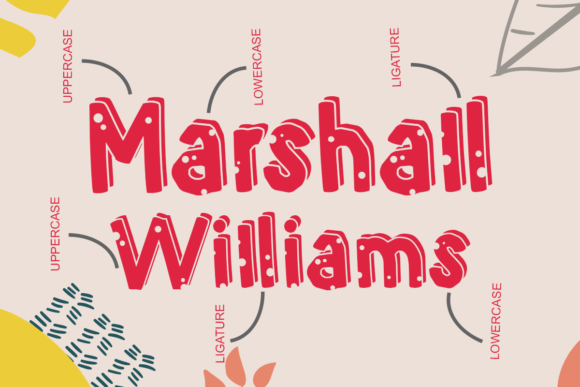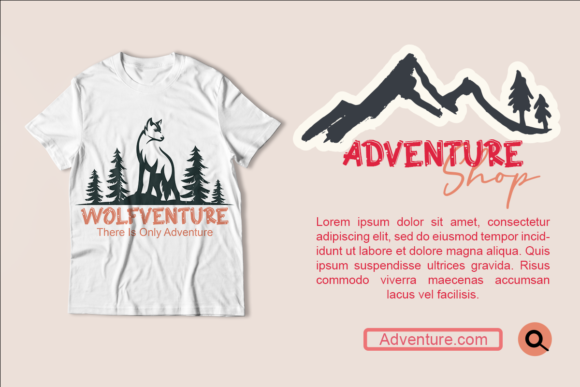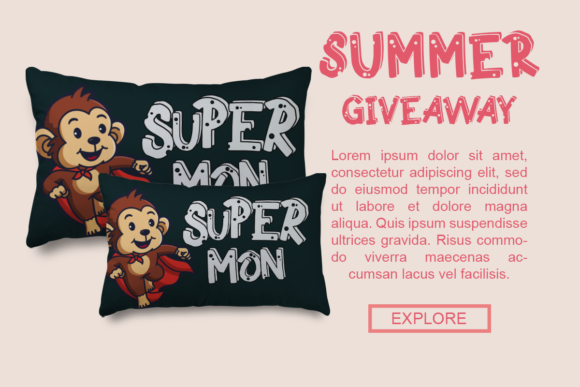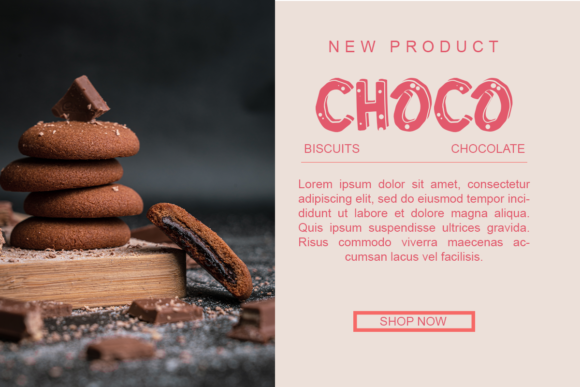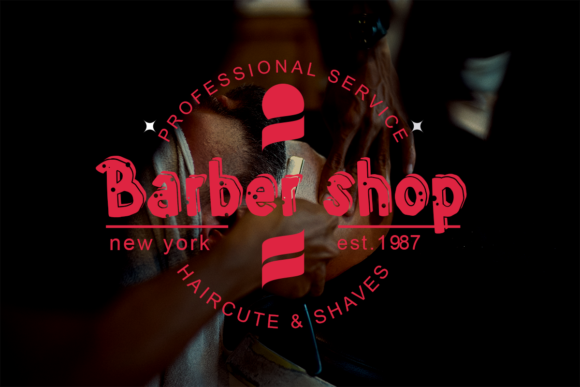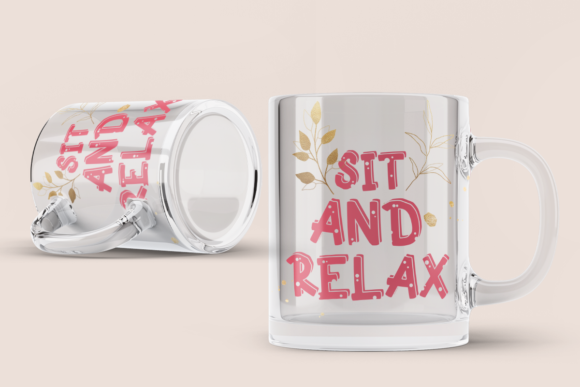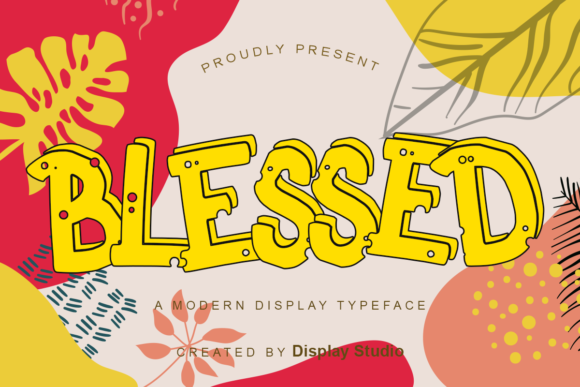
The Blessed Font: A Playful and Creative Display Font for Your Next Project
I’ll never forget the time I was working on a children’s book design project, and I just couldn’t seem to find the right font. The project required a playful, yet bold and eye-catching display font that would appeal to kids and parents alike. That’s when I stumbled upon the Blessed font, and it instantly became my go-to choice. In this article, I’ll share my experience with the Blessed font, its features, and how to make the most of it in your designs.
An Honest Review of Blessed Font
So, what makes the Blessed font so special? Here are some things I love about it:
• ✨ Unique and playful design: The Blessed font has a one-of-a-kind design that sets it apart from other display fonts. Its bold characters and friendly appearance make it perfect for kids-related projects.
• ✅ Highly versatile: Whether you’re working on a back-to-school design, a storybook, or a game cover, the Blessed font is an excellent choice.
• ✅ Easy to read: Despite its bold design, the Blessed font is surprisingly easy to read, even in smaller sizes.
Of course, no font is perfect, and here are a few quirks to keep in mind:
• 🤔 Limited use in formal designs: The Blessed font is quite playful, so it may not be the best choice for formal or professional designs.
• ⚠️ Some glyphs may require manual adjustment: Depending on the design, you may need to manually adjust some glyphs to get the best results.
The Story Behind Blessed Font
The Blessed font was designed with one goal in mind: to create a playful and creative display font that would inspire designers and creatives to create amazing projects. The designer, [Designer Name], drew inspiration from their own childhood and love of illustration, aiming to create a font that would bring a smile to people’s faces.
What is the Blessed font best used for? The Blessed font is perfect for kids-related projects, back-to-school designs, storybooks, game covers, and more.
Is the Blessed font easy to read? Yes, despite its bold design, the Blessed font is surprisingly easy to read, even in smaller sizes.